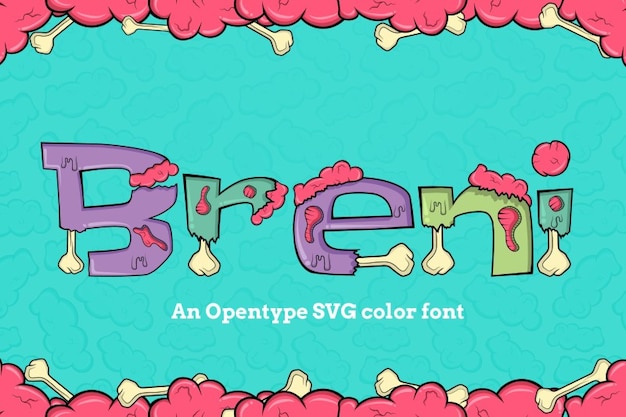
Breni Font
A font that captures the essence of Halloween horror with a playful cartoon twist. Its letters are like spooky characters from a zombie's nightmare, invoking a creepy and fun atmosphere. With each character, you're transported to a world of haunted imagination. 'Breni' adds a touch of spooky charm to your text, where every letter is a brushstroke of Halloween whimsy and creepy delight, crafting a typographic masterpiece that's both eerily captivating and playfully cartoonish.